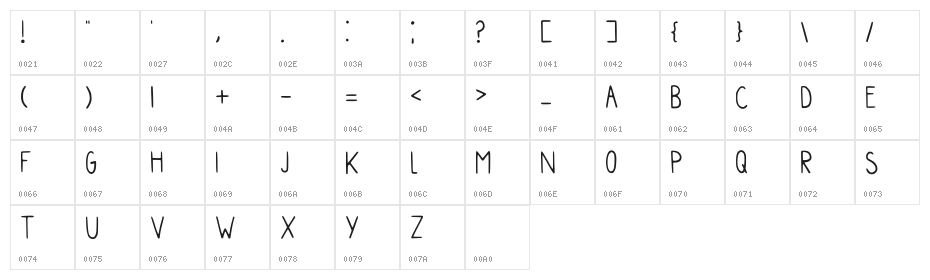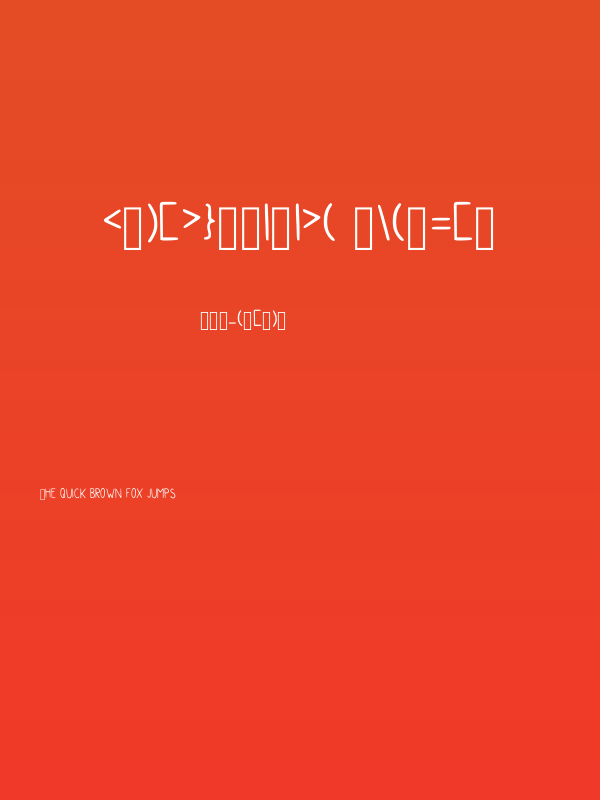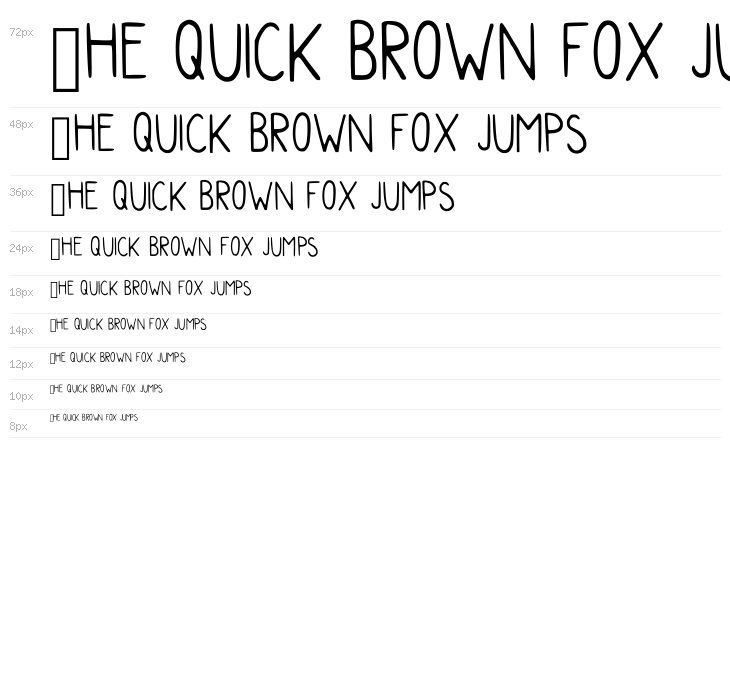
Myhandwriting Regular Font
Myhandwriting Regular Description
This font features a casual, handwritten style that mimics natural penmanship. The characters are slightly irregular, adding a personal and informal touch. The strokes are consistent in width, giving it a clean and approachable appearance. The uppercase letters are tall and narrow, while the lowercase letters maintain a similar height, creating a cohesive look. The numbers and special characters follow the same handwritten aesthetic, ensuring uniformity across all glyphs. This font is ideal for projects that require a personal or informal tone, such as personal notes, invitations, or creative projects.
| Use Case | Invitations, Personal notes, Creative projects |
| Proposed Projects | Ideal for personal notes, invitations, greeting cards, and creative projects that require a handwritten feel. |